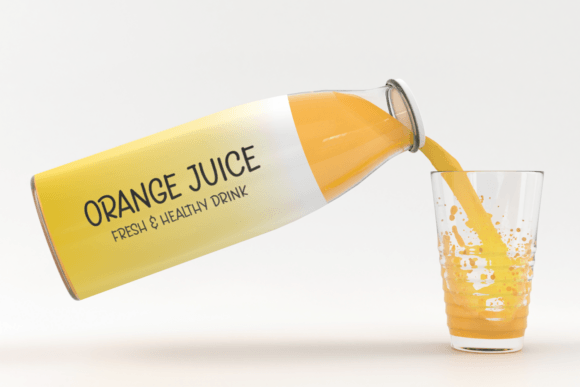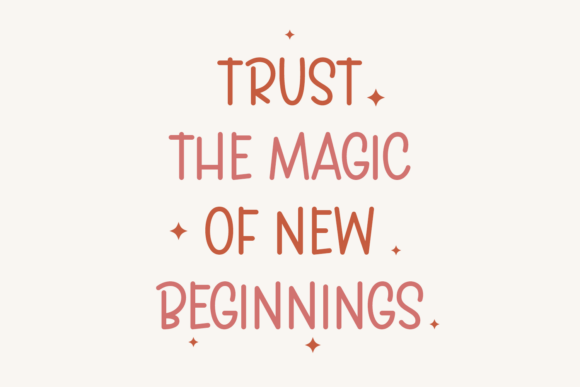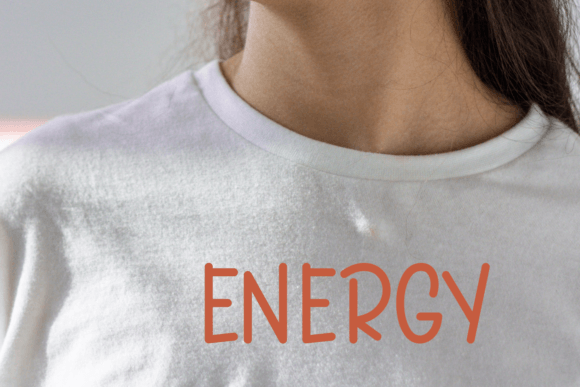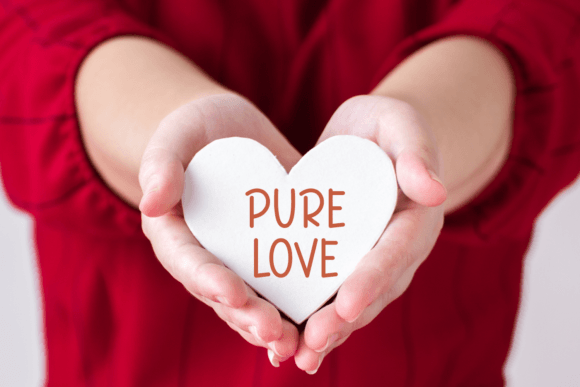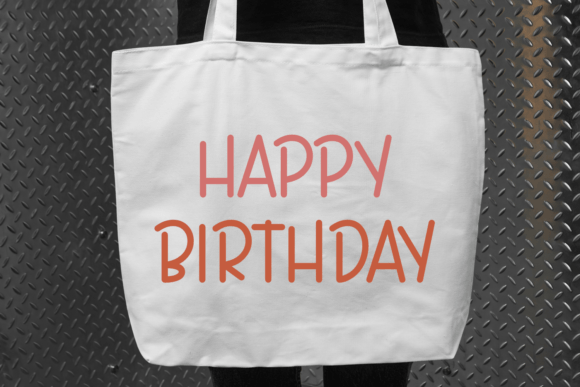
Dream Shakes Font: Elevate Your Designs with a Playful Handwritten Touch
In the world of design, fonts play a pivotal role in conveying the tone and personality of a project. Whether you’re crafting a brand’s visual identity, creating art for a Valentine’s Day campaign, or simply looking to add a personal touch to your DIY crafts, the right font can make all the difference. This is where the Dream Shakes font comes into play—a new, handwritten font that’s about to revolutionize the way you approach your design projects.
The Charm of Dream Shakes Font
Dream Shakes is not just any font; it’s a statement of creativity and playfulness. Its handwritten nature brings a warm, personal feel to any design, making it instantly more appealing. The playful energy of Dream Shakes is unmatched, providing a fresh and modern look that’s perfect for a wide range of applications. From branding requirements that demand a touch of personality to quotes that need to stand out, Dream Shakes is the ideal choice.
Perfect for Branding and Quotes
Branding is all about creating a memorable impression, and typography is at the heart of this process. Dream Shakes, with its unique and stylish handwritten aesthetic, offers a distinctive approach to branding. It can instantly elevate your brand’s visual identity, making it more engaging and relatable to your audience. Similarly, when it comes to designing quotes, the font’s playful yet elegant look ensures that your message is delivered with both impact and charm.
Designing Eye-Catching Merchandise
Dream Shakes truly shines when it comes to creating eye-catching merchandise. For designers and crafters looking to make a statement with T-shirts, tote bags, or any other wearable art, this font is a game-changer. Its bold and stylish appearance ensures that your designs don’t just blend into the background but make a bold, fashionable statement. Whether you’re creating custom apparel for a business, an event, or simply for fun, Dream Shakes can help you achieve that perfect look.
Adding a Touch of Love and Creativity
During the season of love or for Valentine’s Day, Dream Shakes can add an adorable touch to your love notes, cards, and other romantic projects. The font’s playful yet charming nature makes it perfect for conveying heartfelt messages in a unique and creative way. Beyond romantic projects, Dream Shakes is also ideal for various crafting projects. Whether you’re making personalized gifts, decorating journals, or creating art, this font can add a distinct touch of creativity and personality to your work.
Crafting Unique Logos and Stickers
For businesses and individuals looking to stand out, Dream Shakes offers a fresh approach to logo design. Its unique handwritten style can help create a logo that’s not only memorable but also reflects the playful and approachable side of your brand. Moreover, for those into sticker design, Dream Shakes can help you craft irresistible stickers that capture attention and convey your message with style.
Why Choose Dream Shakes Font?
So, why should Dream Shakes be your go-to font for your next project? Here are a few reasons:
- Playful Energy: Dream Shakes brings a playful touch to your designs, making them instantly more appealing.
- Versatility: It’s suitable for a wide range of projects, from branding and quotes to T-shirts, crafting, and more.
- Creativity: The font adds a distinct touch of creativity, helping your designs stand out.
- Easy to Use: As a digital font, Dream Shakes is easy to integrate into your design projects, making it accessible for both professionals and hobbyists.
| Author | Eightde |
Dream Shakes font is more than just a new addition to the world of typography; it’s a versatile tool that can elevate your designs, add a playful touch to your projects, and help you connect with your audience on a more personal level. Whether you’re a professional designer, a business looking for a fresh branding approach, or a crafter seeking to add a creative flair to your work, Dream Shakes is an exceptional choice. Its unique handwritten style, combined with its versatility and charm, makes it the perfect addition to your design toolkit. So, why wait? Explore the possibilities with Dream Shakes font today and watch your designs transform with a playful, stylish touch.